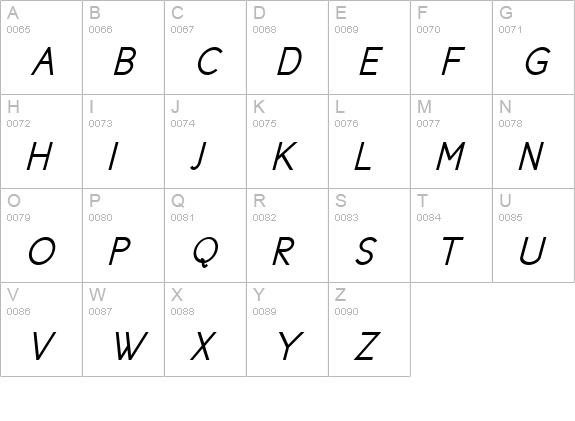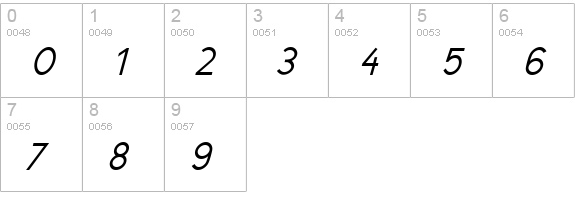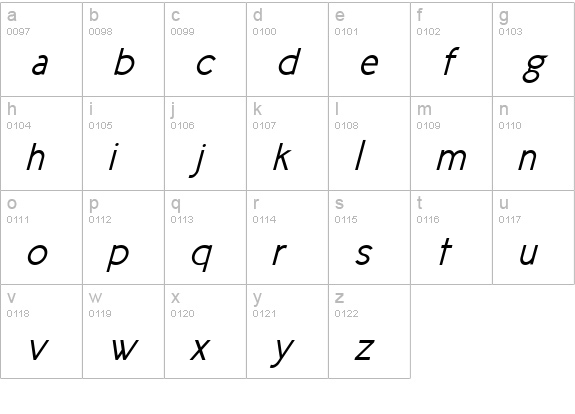
New Cicle Gordita Italic Font Details
New Cicle Gordita Italic is a distinctive, italic variant in the New typeface family \xE2\x80\x94 well suited to design and typography projects.
Introducing the stunning New Cicle Gordita Italic font, a modern and elegant typeface that adds a touch of sophistication to any design project. With its sleek and stylish curves, this font exudes a sense of class and refinement. Perfect for logos, branding, editorial design, and more, New Cicle Gordita Italic is sure to make a statement. What's even better is that this beautiful font is available for free download at FontsMarket.com. Yes, that's right - you can enhance your creative projects with this premium font without spending a dime. Don't miss out on the opportunity to elevate your designs with New Cicle Gordita Italic. Download it today and see the difference it can make!